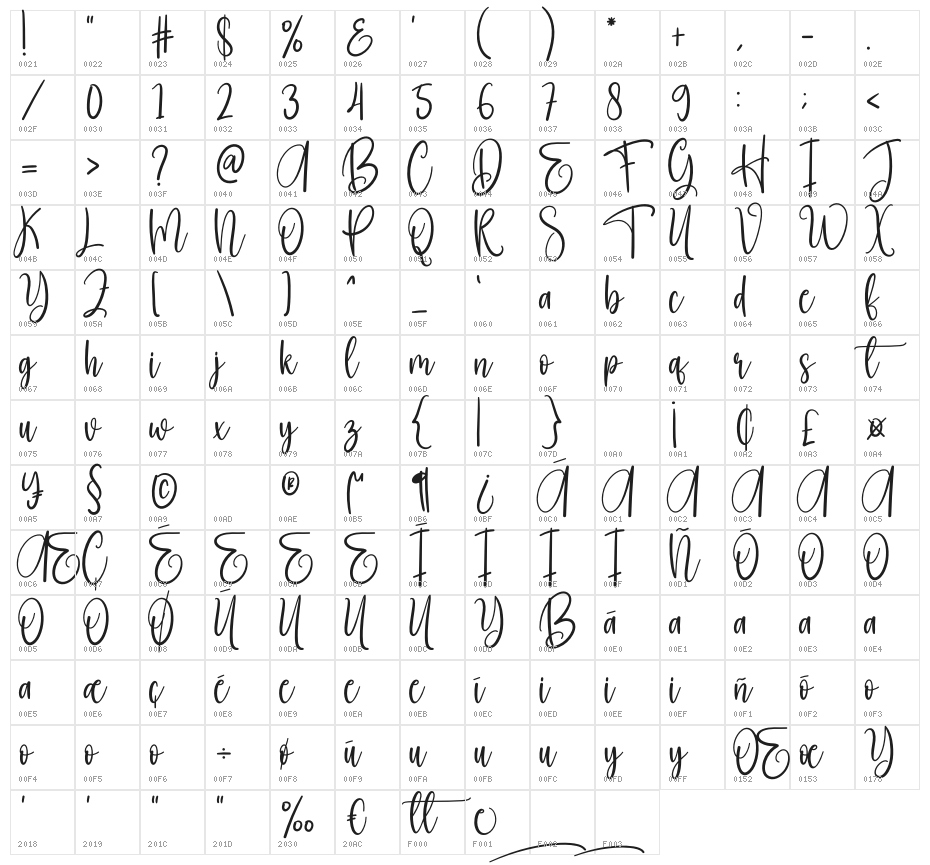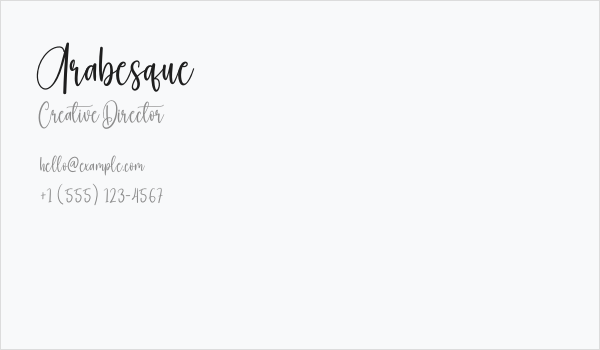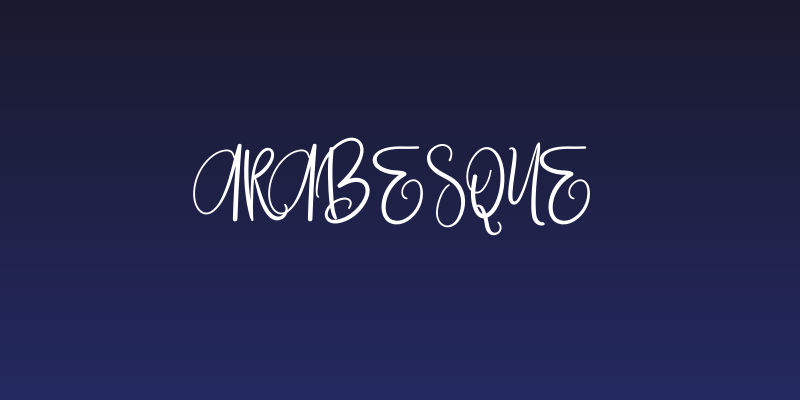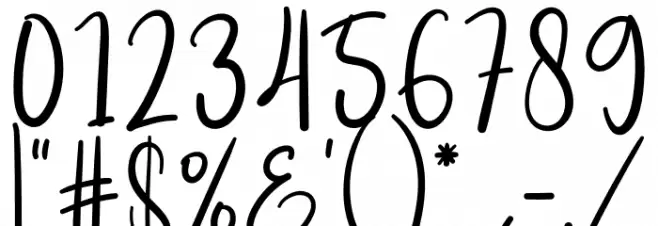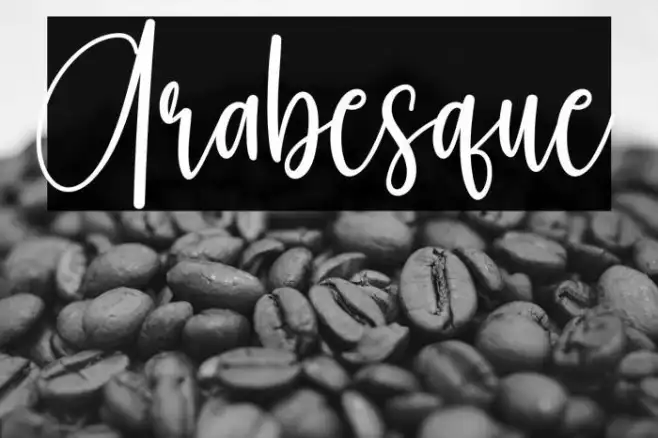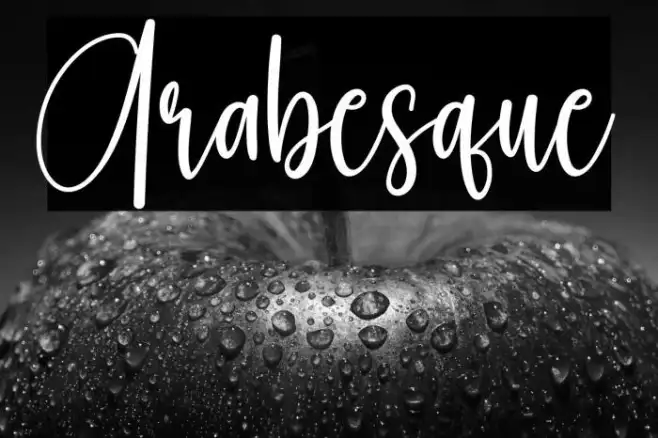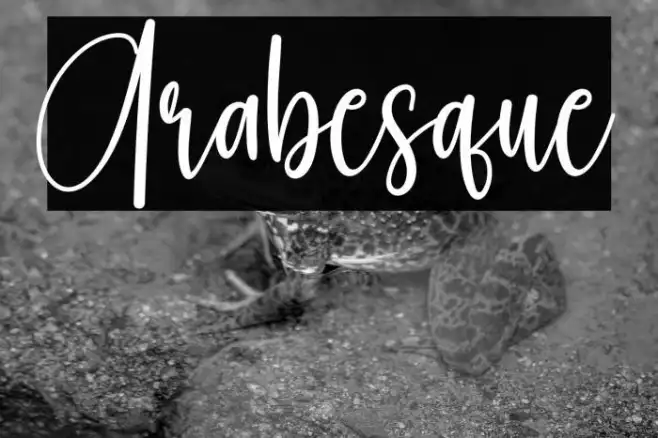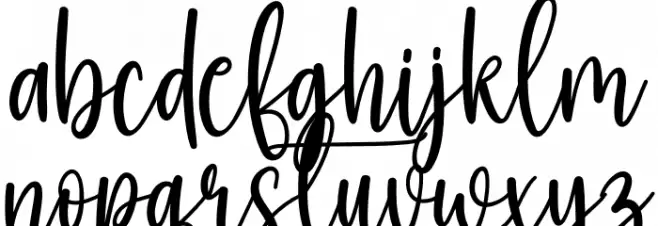
Arabesque Font
Arabesque Description
This font features a lively and expressive handwritten style, characterized by its flowing and interconnected letterforms. The uppercase letters exhibit a playful and dynamic flair, with loops and swirls that add a sense of movement. The lowercase letters maintain a consistent rhythm, enhancing readability while retaining the font's artistic charm. Numbers and special characters are crafted with the same attention to detail, ensuring a cohesive look across all elements. The overall design is both elegant and whimsical, making it suitable for a variety of creative applications.
| Use Case | Logos, Headlines, Artistic projects |
| Proposed Projects | Ideal for wedding invitations, greeting cards, branding projects, and artistic posters. |